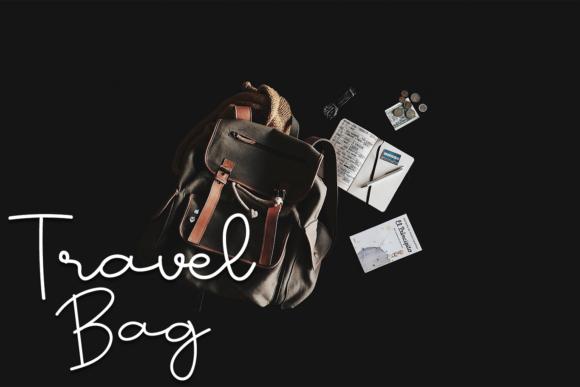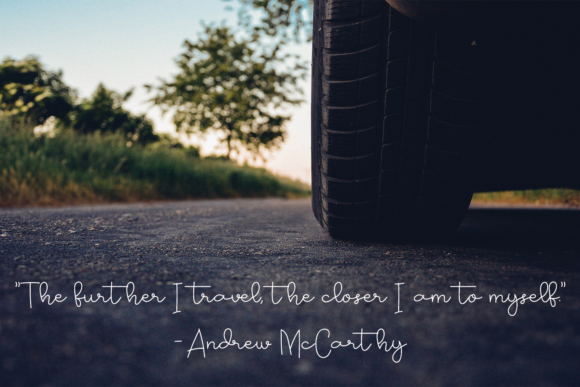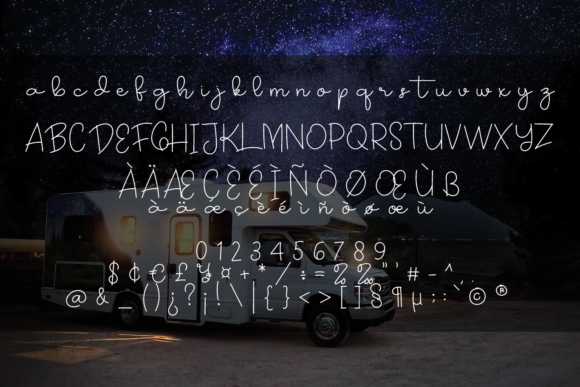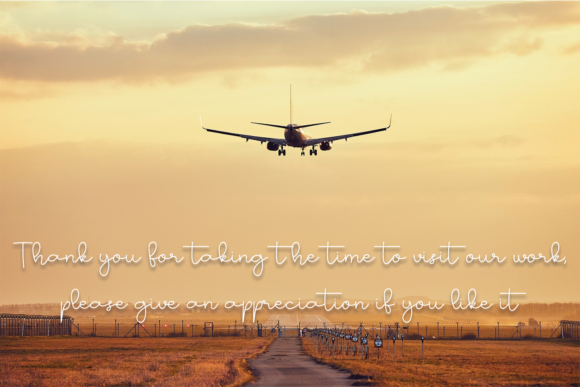
Introduction to Journey Font
Journey is a beautiful light handwritten font with a unique feel and a stunning impact.
It will add a luxurious spark to any lovely project that you wish to create .